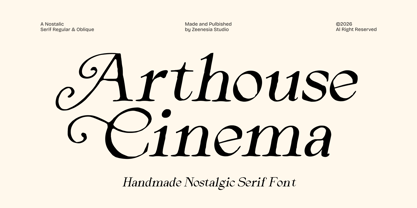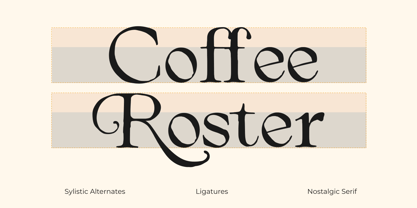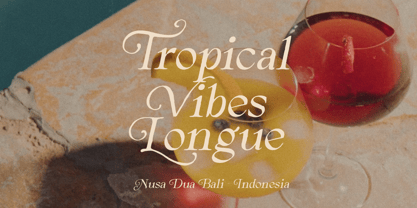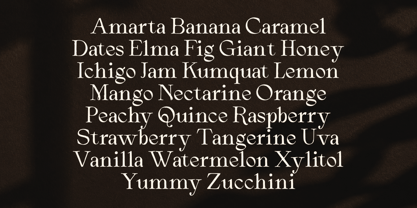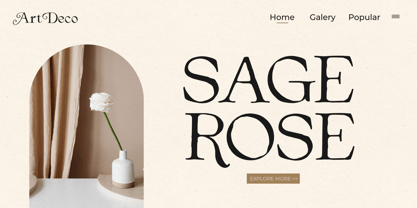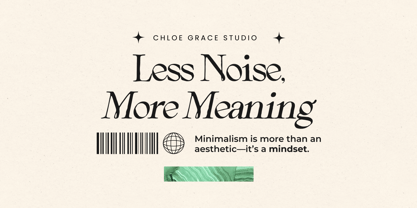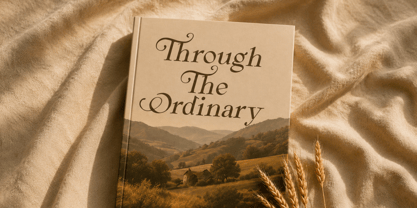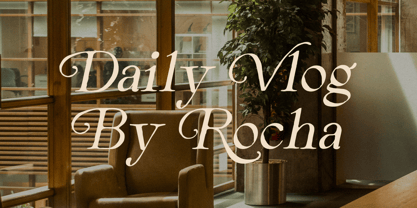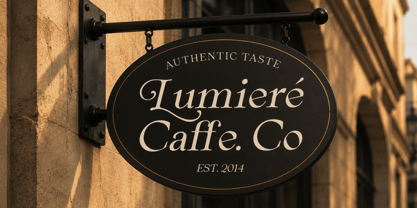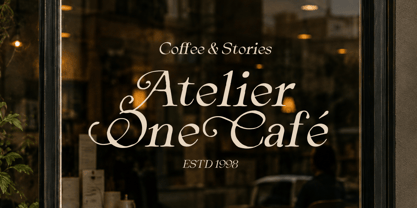
Arthouse Cinema
by Zeenesia Studio
The Arthouse Cinema Font Family was designed by Doni Purwoko and published by Zeenesia Studio. Arthouse Cinema contains 2 styles and family package options. More about this family
Arthouse Cinema is a nostalgic serif typeface inspired by the elegance of classic cinema, vintage editorial design, and handcrafted typography. Featuring graceful curves, refined serifs, and distinctive flowing details, this font brings a timeless and artistic character to every composition.
Designed with a delicate balance between sophistication and organic charm, Arthouse Cinema includes Regular and Oblique styles that create a beautiful contrast for branding, luxury packaging, editorial layouts, wedding invitations, posters, fashion projects, and creative displays.
With its elegant rhythm and nostalgic atmosphere, Arthouse Cinema is perfect for designers who want to add a touch of cinematic romance, vintage elegance, and handcrafted personality to their work.